1. Introduction Dummy Design Project Portfolio
Dummy Design Project Portfolio is the backbone of a creative career—whether you are a graphic designer, branding specialist, illustrator, or font creator. But what if you are new to the industry or simply lack enough commercial projects to showcase? This is where the Dummy Design Project Portfolio comes in.
Dummy projects (also known as spec work, self-initiated projects, or conceptual projects) allow designers to demonstrate skills, creativity, style, and problem-solving ability—even without client work. In this article, we will explore how to create impactful dummy projects, which fonts work best for showcasing your mockups, and how they can dramatically elevate your portfolio’s visual appeal.
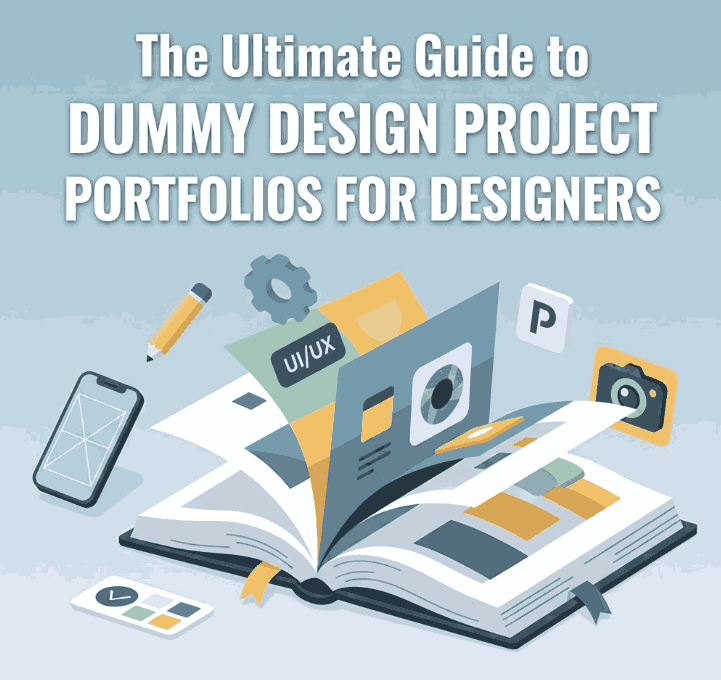
2. What Is a Dummy Design Project Portfolio?
A Dummy Design Project Portfolio is a curated collection of design works created without a real client. These projects are often conceptual, self-initiated, or crafted for practice and portfolio enhancement.
They can include:
- Fictional brand identities
- Mock product packaging
- Poster and advertisement designs
- Magazine or layout designs
- UI/UX redesigns
- Creative typography compositions
These projects aren’t commissioned—they are crafted to showcase your ability, style, and design thinking.
3. Why Matter Dummy Design Project Portfolio
Creating dummy projects is a powerful way to grow your career. Here’s why:
✔ Build Skills
They help you practice real-world workflows—from research to concept to execution.
✔ Showcase Your Style
Dummy projects reflect your personal aesthetic, not limited by client demands.
✔ Demonstrate Versatility
You can design for industries you want to work in: beauty, food, apparel, tech, lifestyle, etc.
✔ Build Client Trust
Professionally presented dummy projects can be as convincing as real commissions.
✔ Fill in Portfolio Gaps
Perfect for beginners or designers transitioning to a new niche.
According to Adobe Creative Cloud’s portfolio guidelines, conceptual work is acceptable as long as it clearly demonstrates expertise and storytelling. This makes dummy projects widely recognized and valued in the industry.
4. When You Should Use Dummy Design Project Portfolio
Dummy design projects are especially useful when:
- You have limited client work
- You want to enter a new design specialty
- You are building your brand identity as a designer
- You want to practice using new tools, fonts, or techniques
- You need high-quality content for Behance, Dribbble, or your portfolio website
These types of projects help you grow, experiment, and build a strong visual resume.
5. How to Create Effective Dummy Design Project Portfolio
1. Choose a Realistic Brand Concept
Start by selecting a fictional brand name, target audience, and industry.
For example:
- Organic skincare brand
- Coffee shop identity
- Luxury perfume packaging
- Festival poster design
The brand must feel believable and relatable.
2. Define the Project Scope
Determine what you will design:
- Logo
- Color palette
- Typeface selection
- Packaging
- Social media posts
- Website or UI screens
- Advertising poster
A clear scope helps maintain consistency.
3. Build a Complete Visual Direction
Design your visual identity as if for a real client:
- Moodboard
- Color theory
- Typography system
- Layout guides
- Graphic elements
This improves storytelling and strengthens your portfolio.
4. Use High-Quality Dummy Design Project Portfolio
Typography is one of the strongest tools in visual branding. Using premium fonts makes your dummy designs look polished and professional. Below, you’ll find curated font recommendations from CalligraphyFonts.net.
5. Present the Final Mockups
Great presentation increases perceived value.
Use:
- Product packaging mockups
- Poster mockups
- Branding mockups
- Social media layouts
- Stationery mockups
This transforms simple designs into professional visual assets.
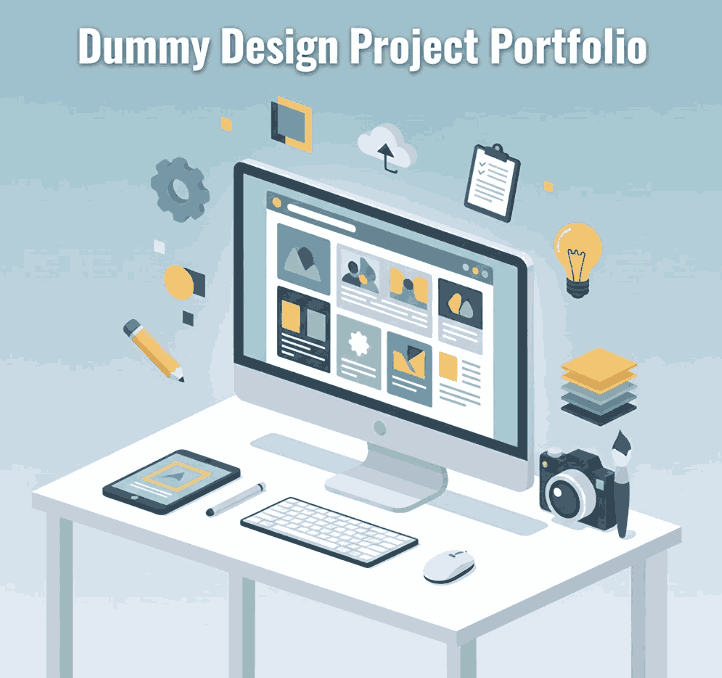
6. Best Fonts for Dummy Design Project Portfolio Mockups (From CalligraphyFonts.net)
To make your dummy projects look premium and elegant, here are four recommended fonts—perfect for logos, packaging, and branding presentations: